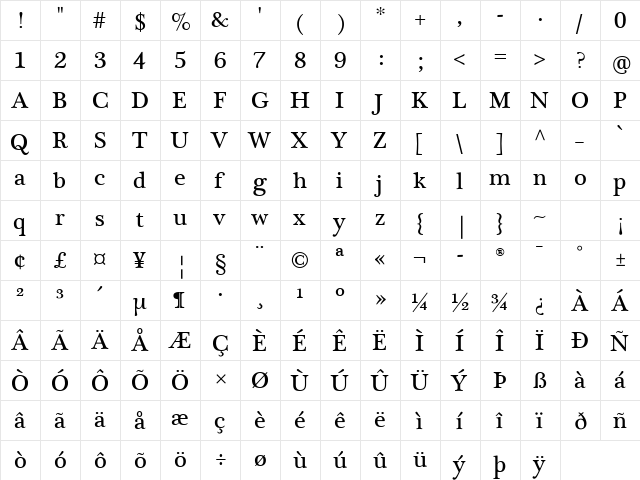
Plantagenet Cherokee Regular
| Foundry | Tiro Typeworks |
| Designer | Ross Mills |
Design Context for Plantagenet Cherokee Typeface
Plantagenet Cherokee offers clean, dependable letterforms without strong stylistic allegiance, making it a practical choice for designers who need flexibility.